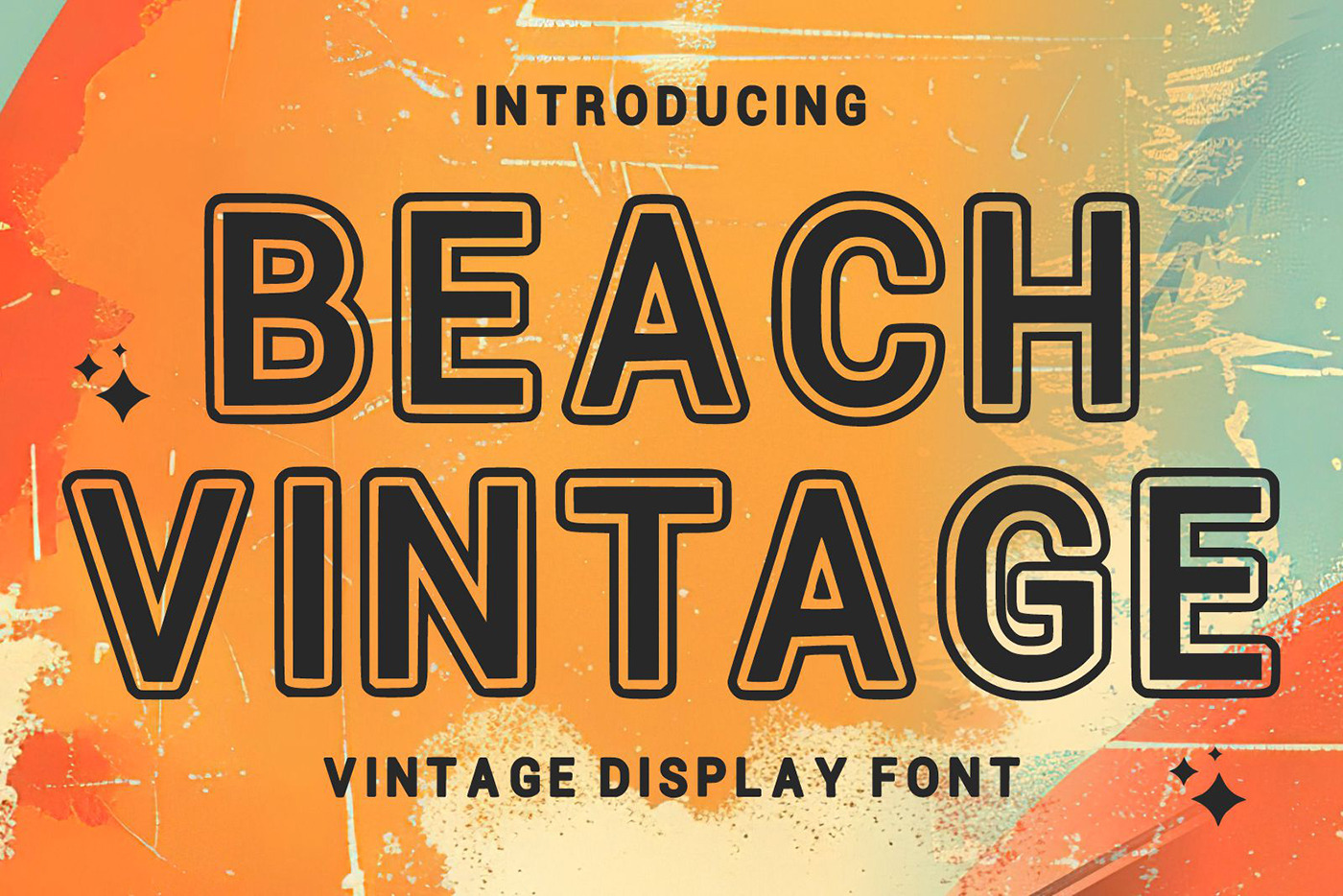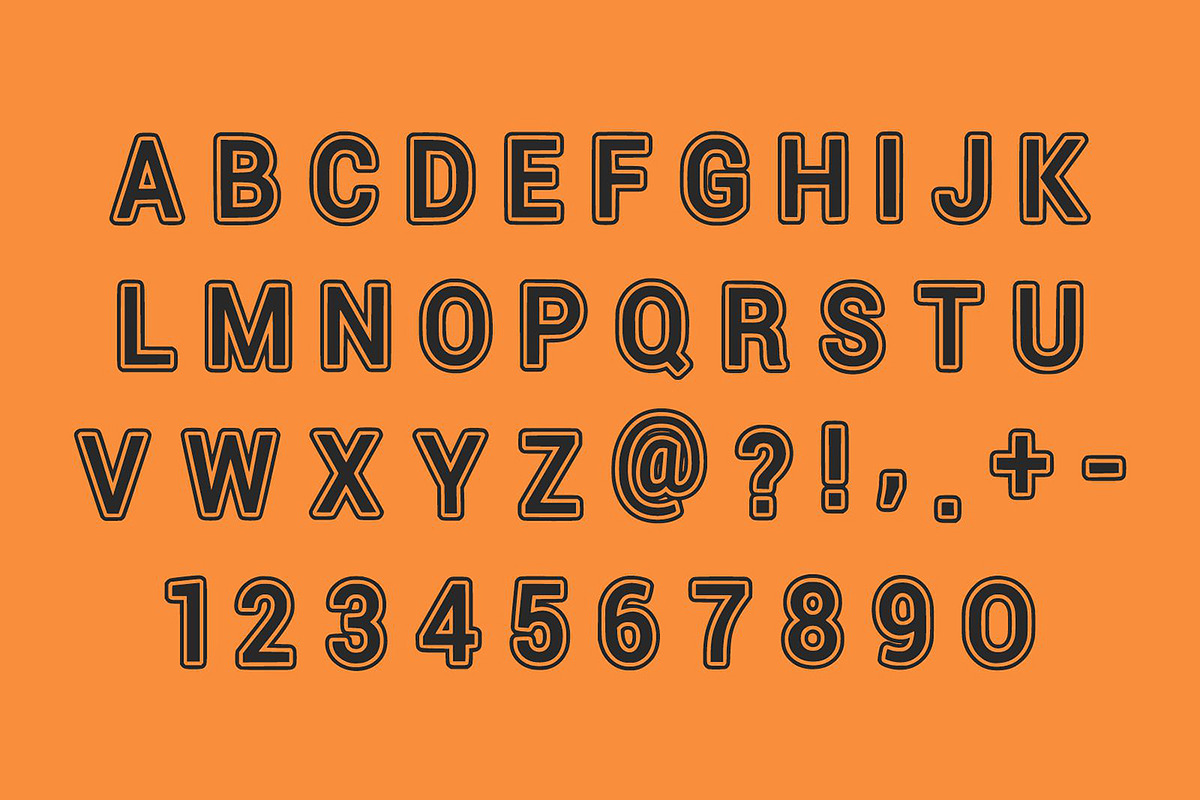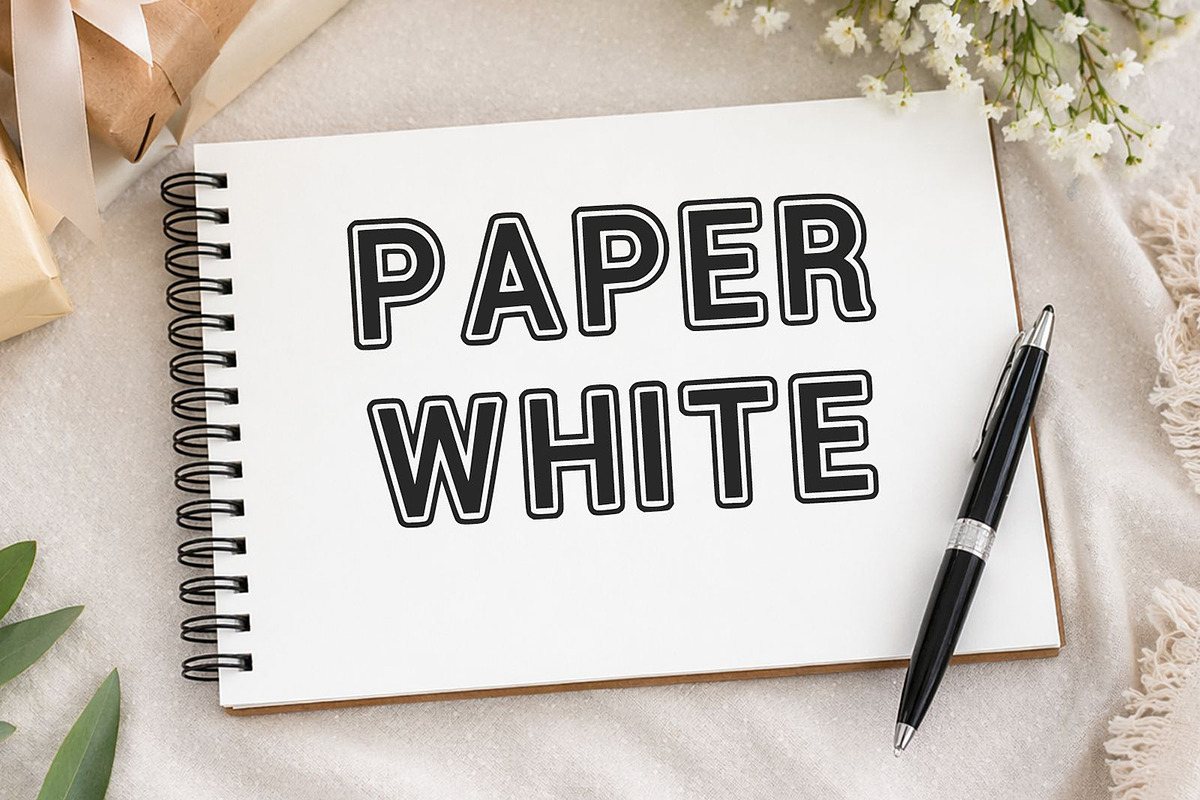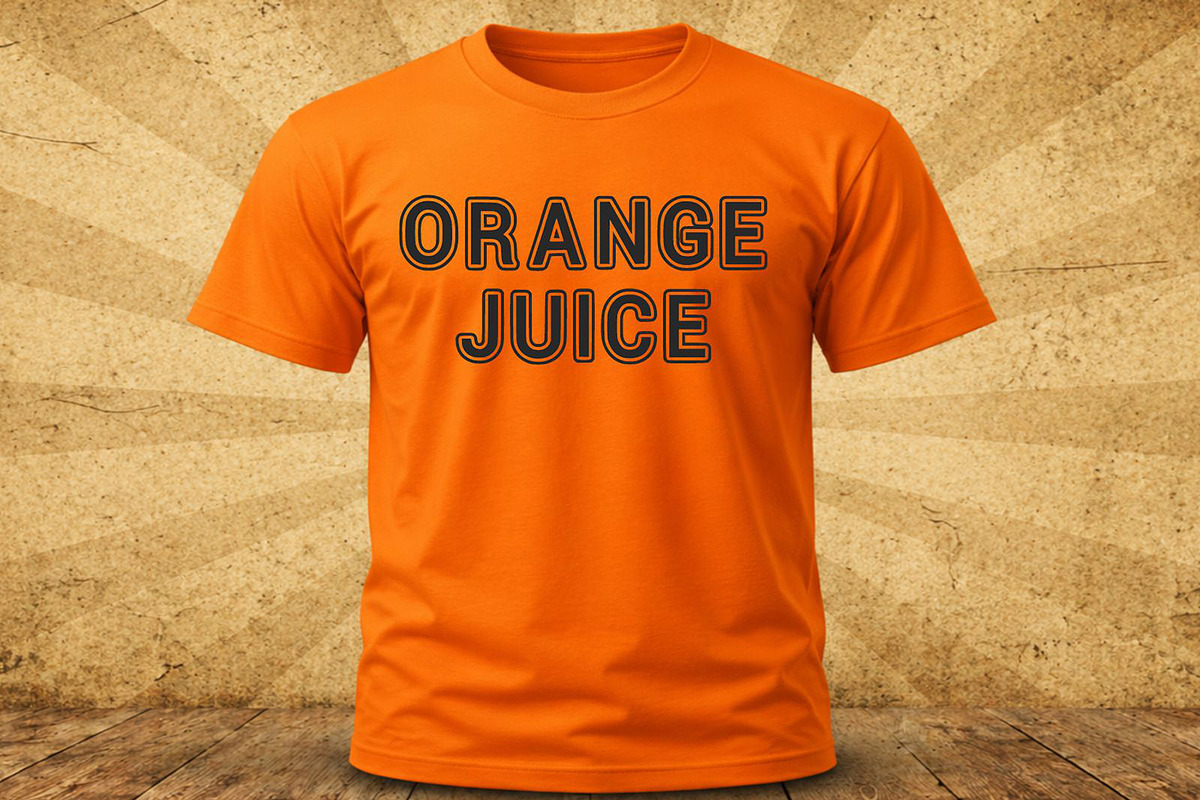
Beach Vintage Outline Display Font
Beach Vintage Outline Display Font is a stylish retro-inspired typeface featuring bold letterforms with a clean outline style. Inspired by vintage beach posters and summer travel graphics, this font brings a nostalgic and vibrant feel to any design. Perfect for beach-themed projects, summer posters, branding, logos, t-shirt designs, packaging, social media graphics, and retro creative layouts. Its bold outline style makes headlines stand out while maintaining a fun and relaxed vintage atmosphere.